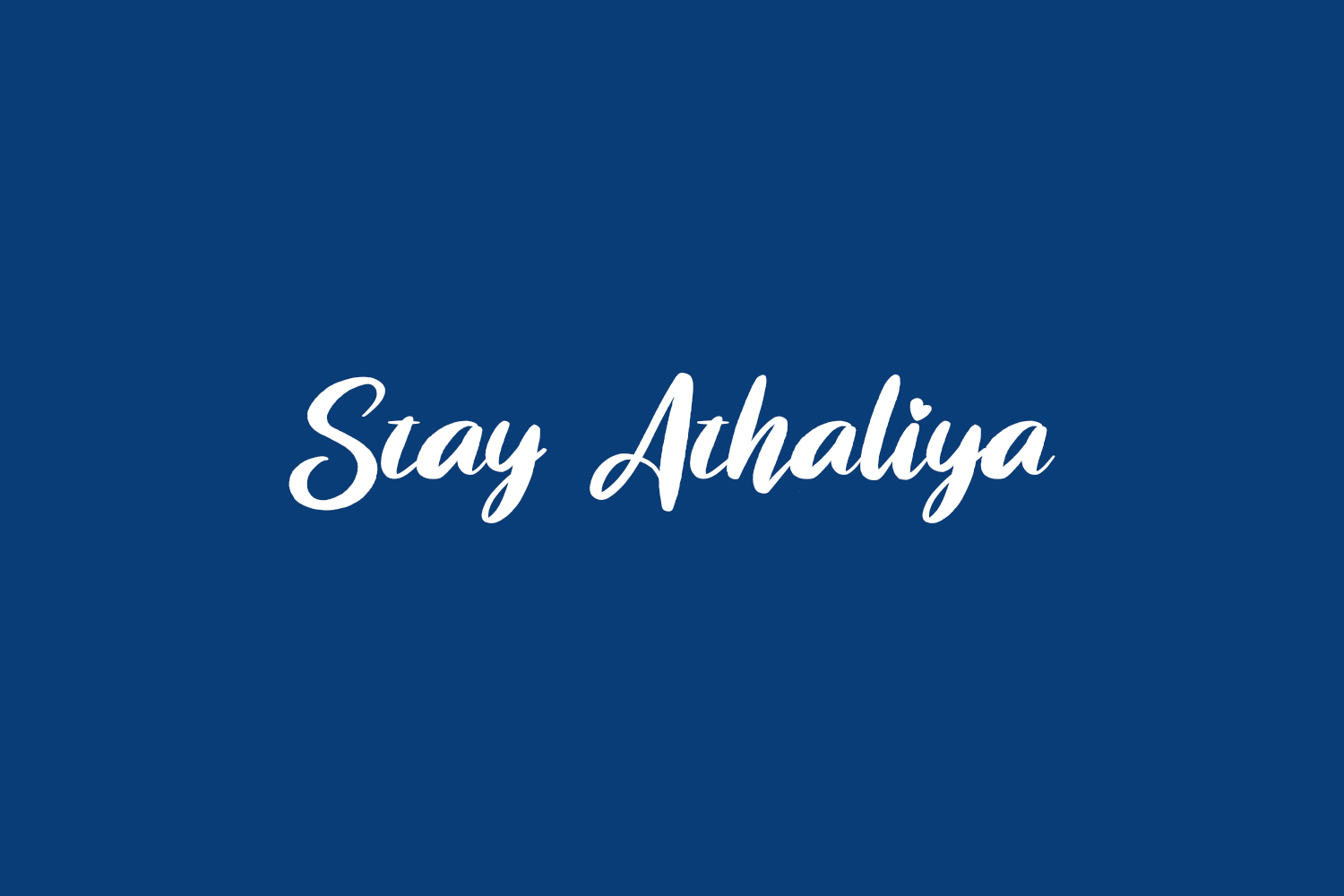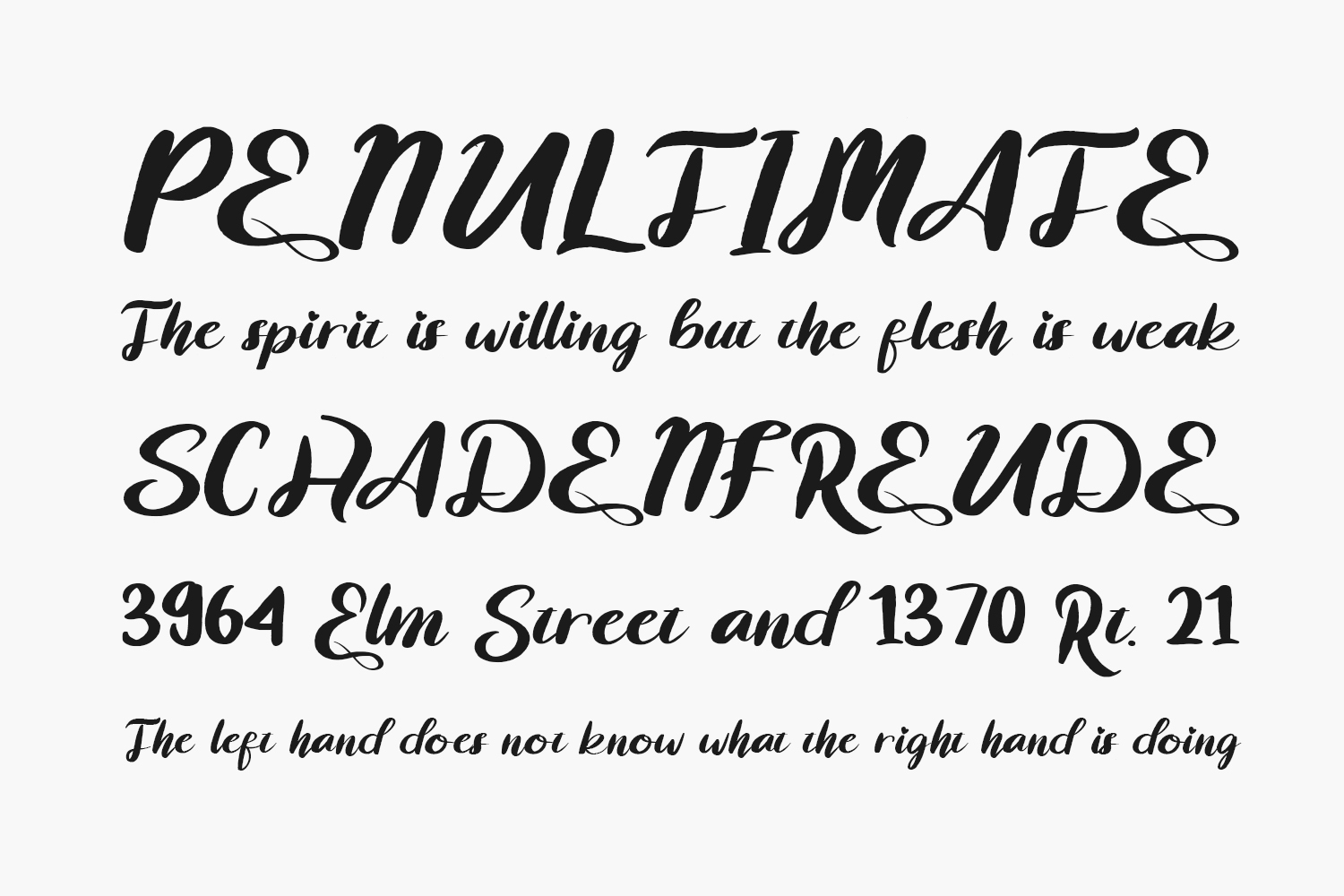
Stay Athaliya Free Font is a chic, refined script font that emanates sophistication and elegance. Its stylish alternates and ligatures make this font the perfect match for any project. Stay Athaliya Free Font was designed by Nomlimofont and is free for personal use only. Please purchase the full version for commercial use.